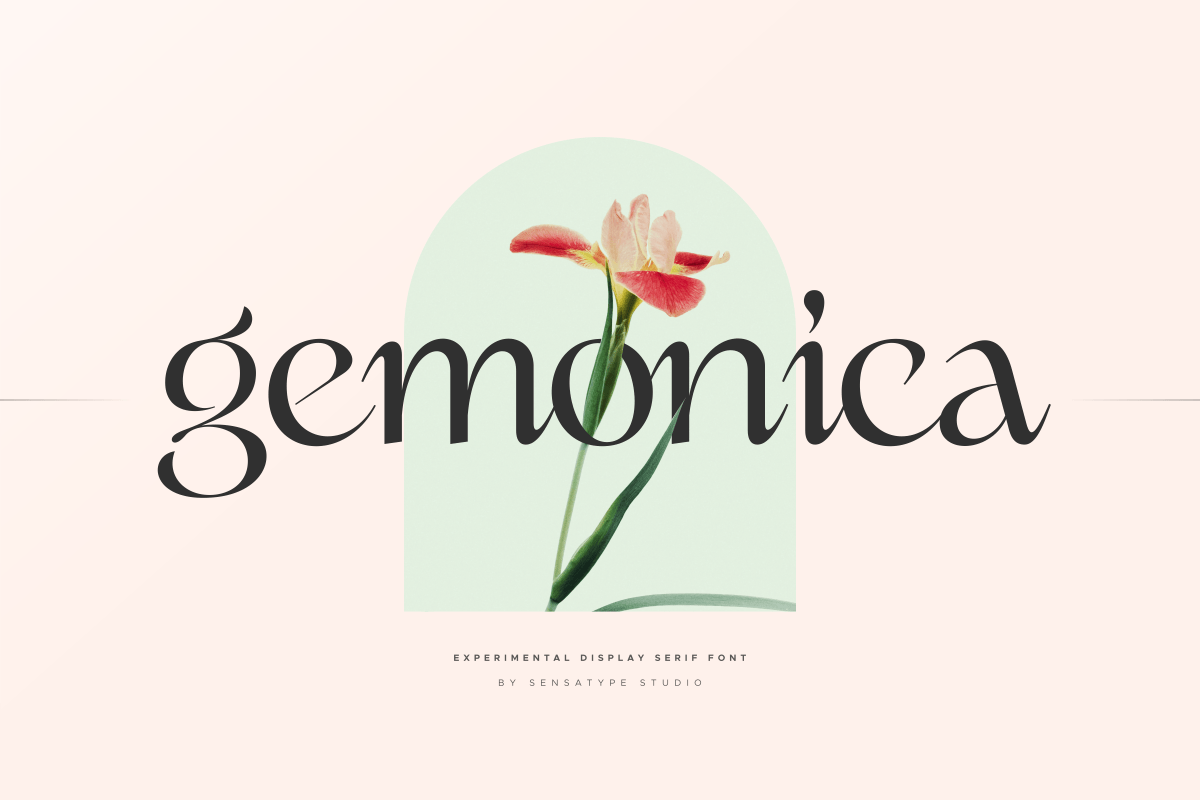
Gemonica
-Experimental Display Serif Font
Gemonica - Experimental Display Serif Font
Gemonica is an experimental display serif font featuring unique letterforms and an artistic visual character. Designed for designers who want a distinctive and creative typeface, this font combines classic serif foundations with modern experimental details.
Perfect for luxury branding, logo design, editorial layouts, posters, fashion projects, packaging, and creative identity systems. Gemonica helps designers create memorable typography with an elegant yet unconventional appearance.
With its unique shapes and expressive serif style, Gemonica is a versatile choice for brands and creatives who want to stand out with a refined and original typographic style.